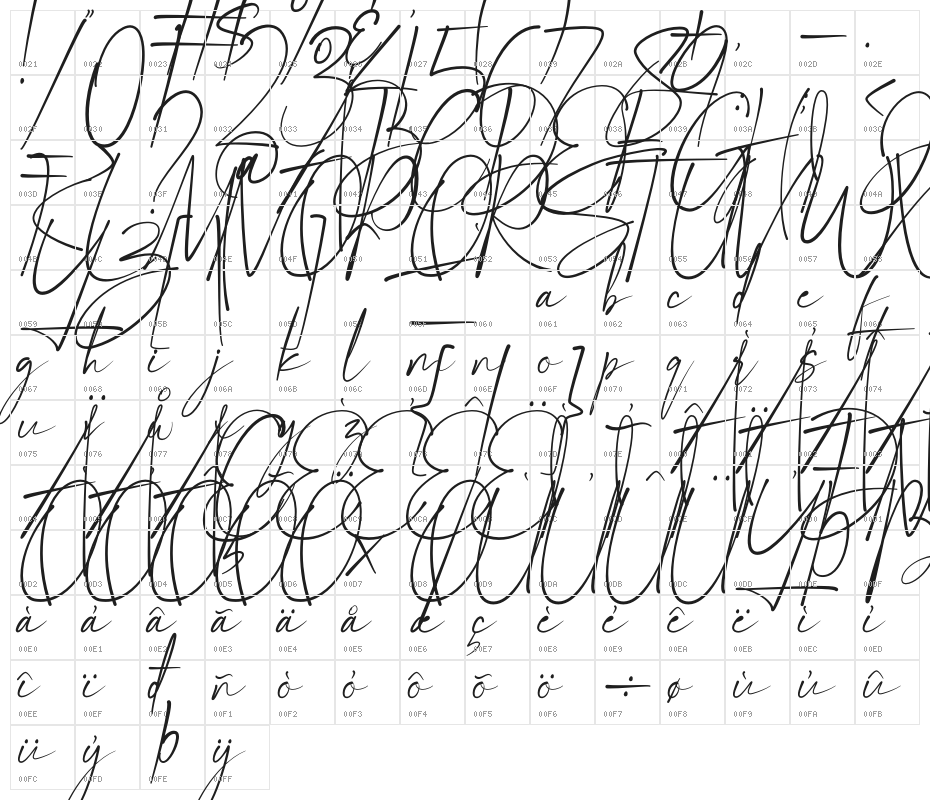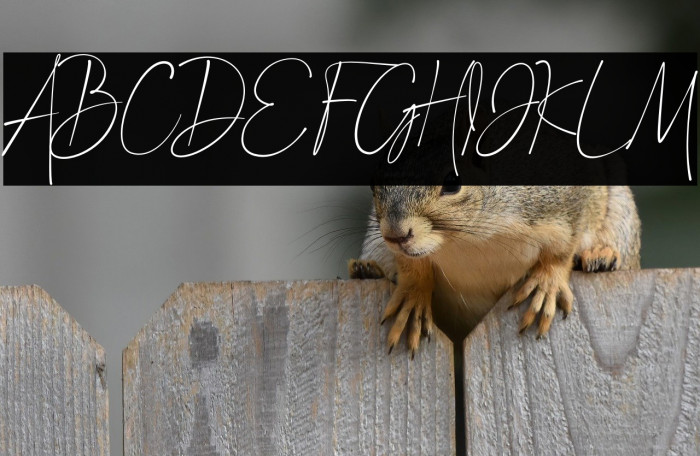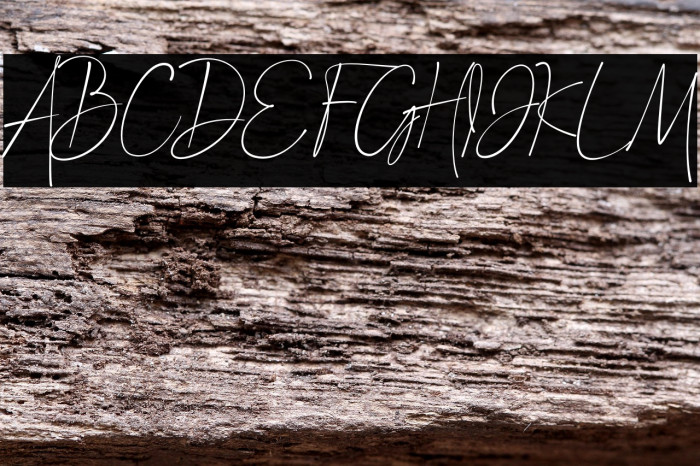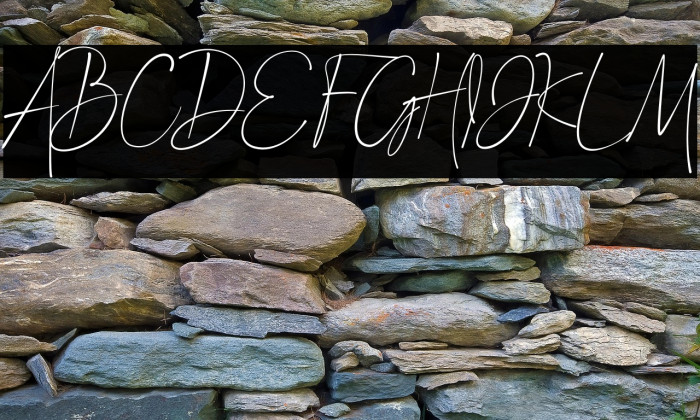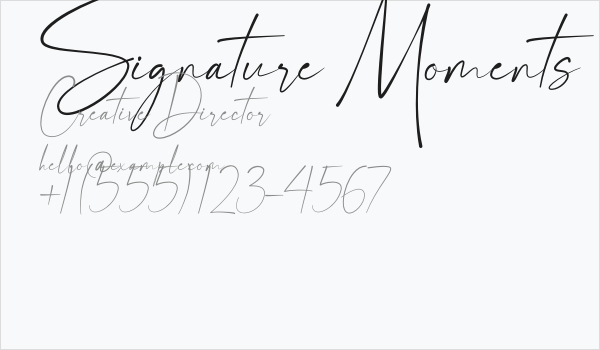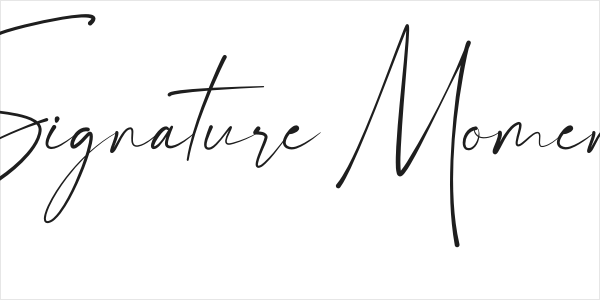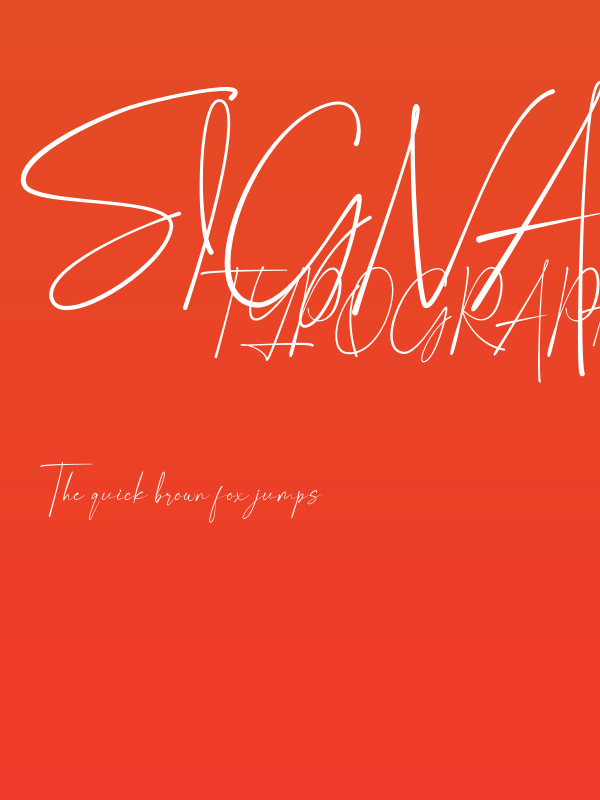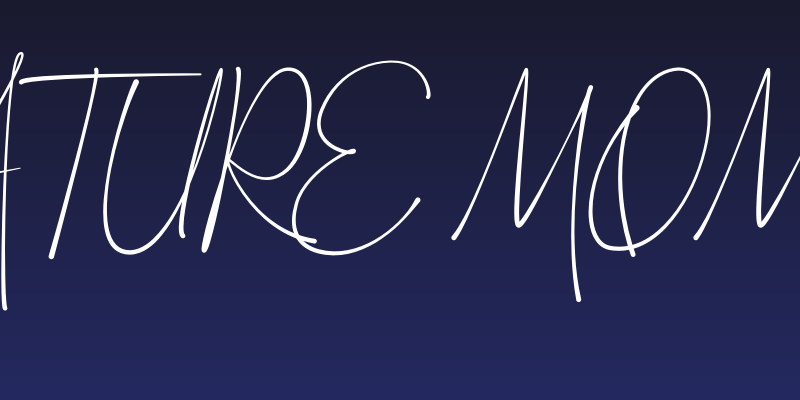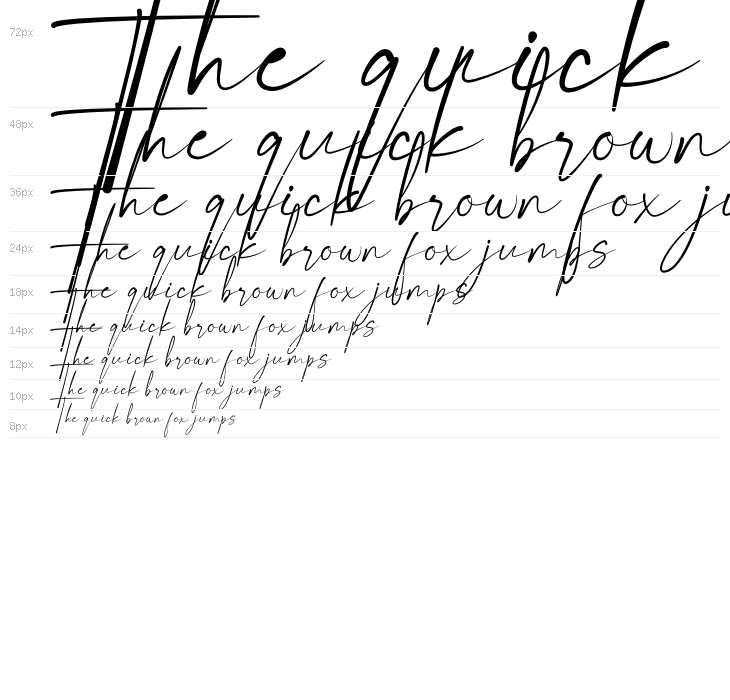
Signature Moments Font
Signature Moments Description
This font exudes a modern, handwritten style with a fluid and elegant appearance. The characters are crafted with a natural flow, resembling a personal signature. The uppercase letters are tall and slightly narrow, while the lowercase letters maintain a consistent slant, enhancing the cursive feel. Numbers and special characters are seamlessly integrated, maintaining the overall aesthetic. The strokes are thin, contributing to a light and airy look, while the character spacing is tight, creating a cohesive and continuous line of text. This font is perfect for projects that require a personal touch, such as invitations, branding, or any design that aims to convey elegance and sophistication.